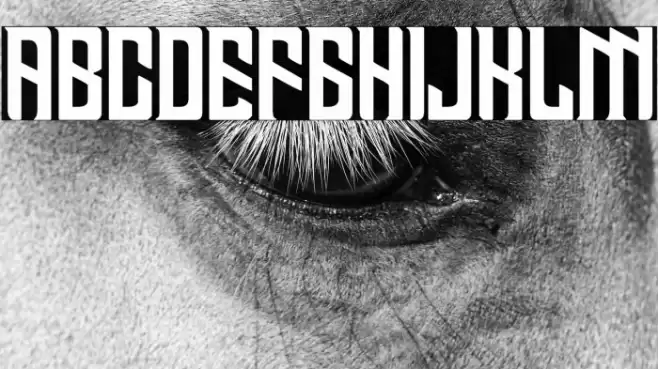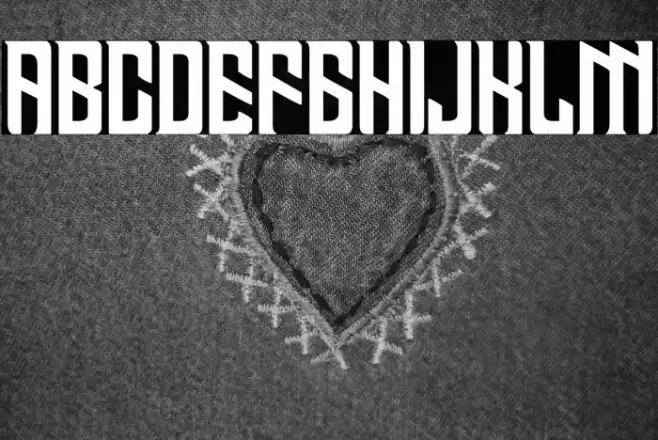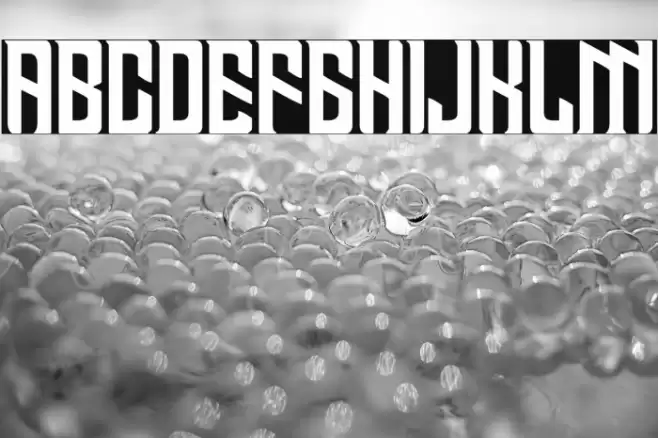
BASTERU Font
BASTERU Description
This font features a bold and angular design with a distinctly modern and futuristic aesthetic. The uppercase letters are tall and narrow, with sharp edges and a geometric structure that gives them a strong presence. The lowercase letters maintain this angular style, providing a cohesive look across different cases. Numbers and special characters follow the same design principles, ensuring uniformity. The font's unique style makes it stand out, ideal for projects that require a bold statement. Its sharp lines and angles suggest a sense of precision and modernity.
A bold, angular font with a modern, futuristic aesthetic from Uncategorized fonts.
- Proposed Projects: Ideal for branding, posters, video game titles, and sci-fi themed designs.